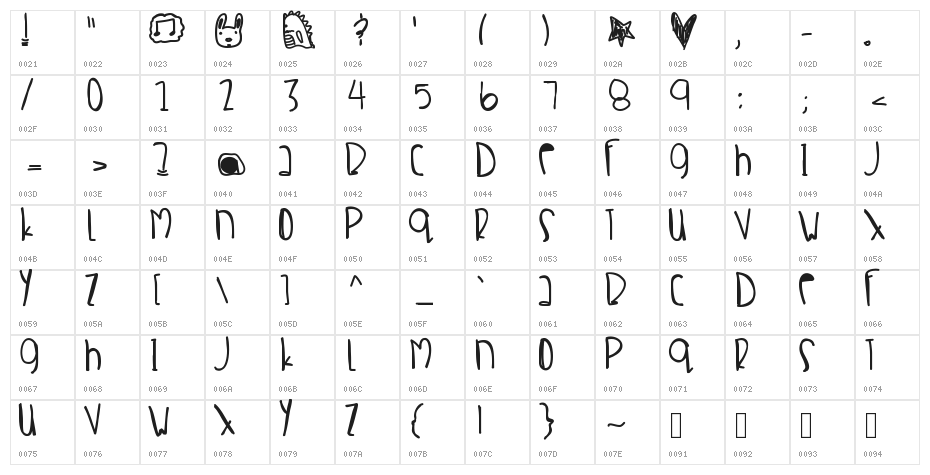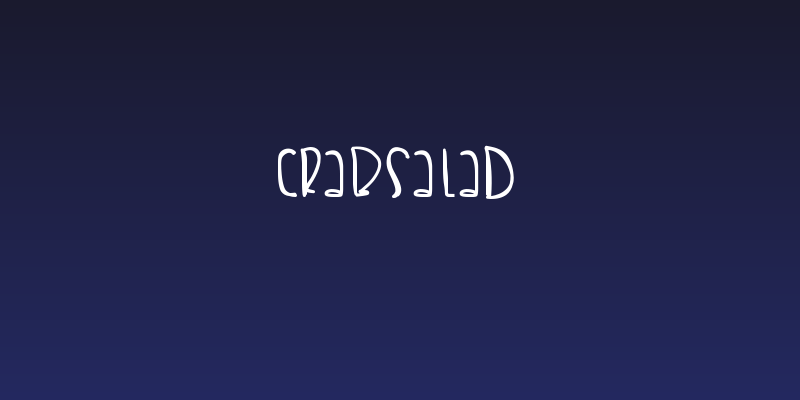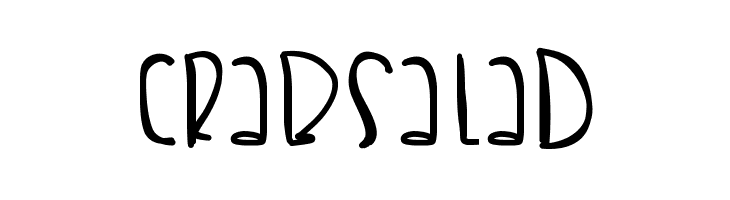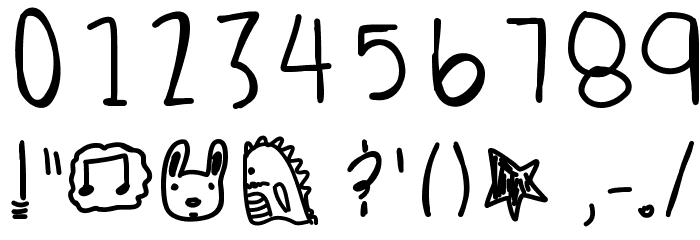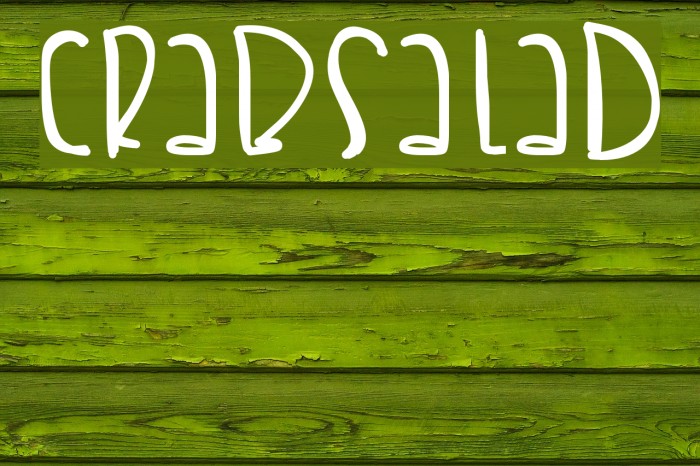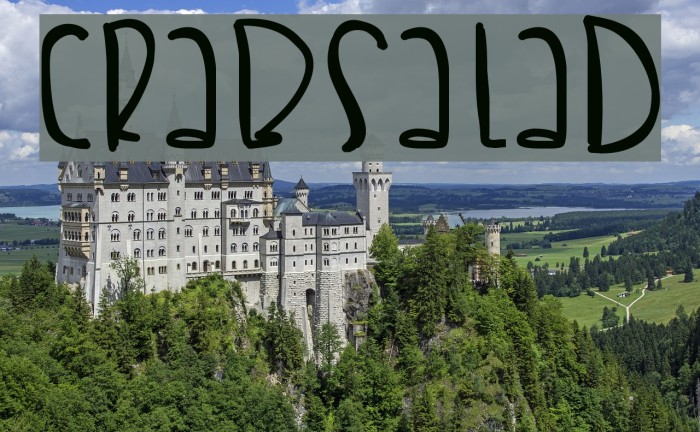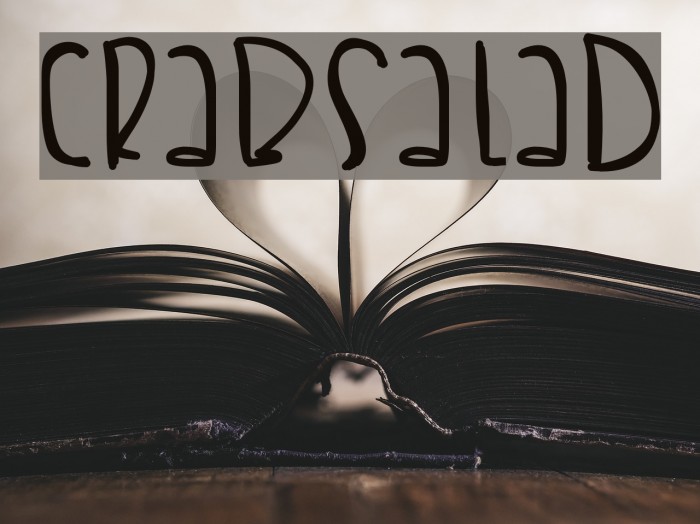
CrabSalad Font
CrabSalad Description
This playful and whimsical font features a hand-drawn style with irregular strokes and a casual feel. The uppercase and lowercase letters have a unique, quirky appearance, with varying heights and widths that add to its charm. The numbers and special characters maintain this playful aesthetic, making it ideal for creative projects. The font's organic, freeform design gives it a friendly and approachable vibe, perfect for engaging and informal communication.
| Proposed Projects | Ideal for children's books, greeting cards, playful branding, and creative posters. |